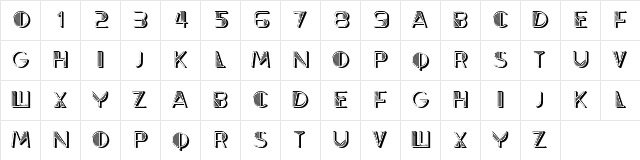
Favorita Regular
Design Context for Favorita Typeface
Favorita is a composed and adaptable typeface that performs quietly and consistently across a wide range of design contexts.